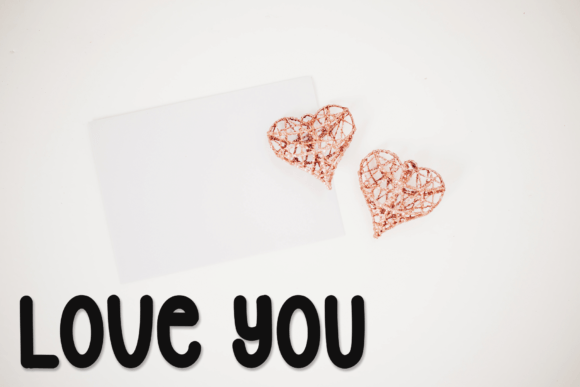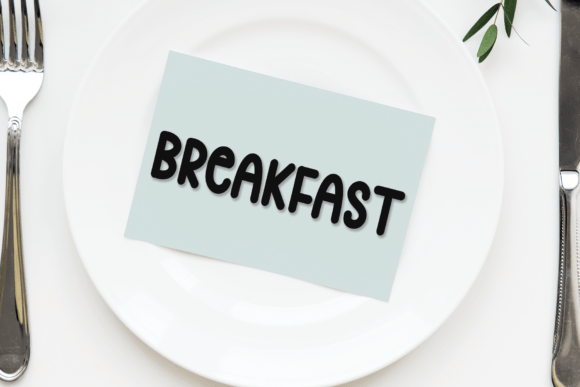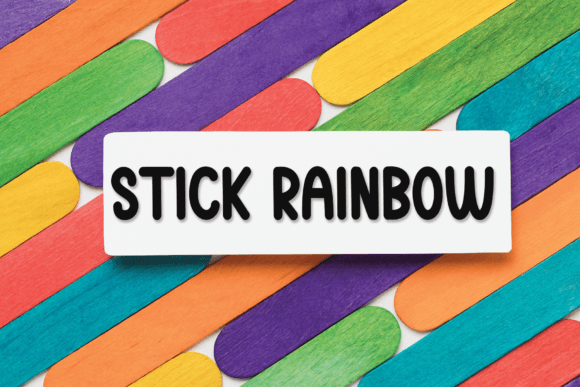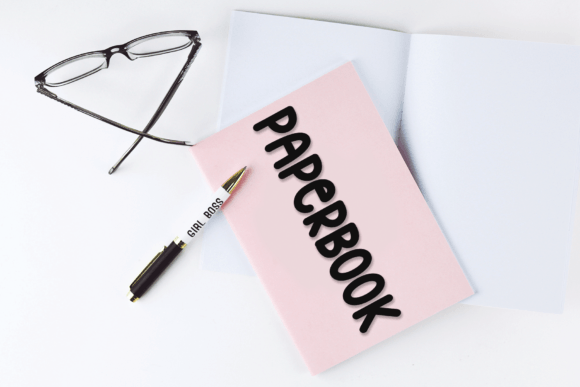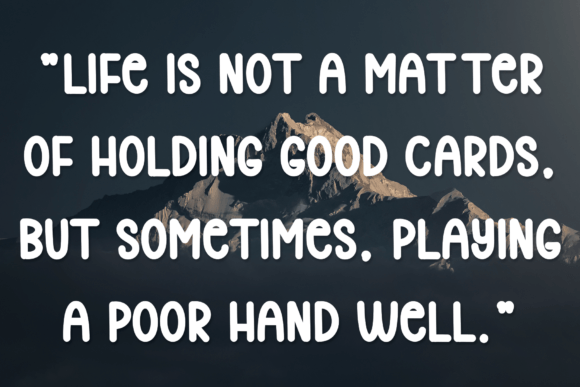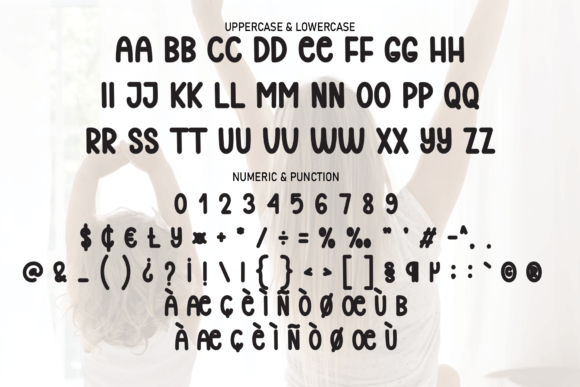
The Perfect Start: Unlocking the Power of the Beginning Font
Have you ever stared at a blank canvas, feeling like a spark of creativity is just out of reach? We’ve all been there – the blank page, the empty design space, the daunting task of bringing an idea to life. But what if we told you that the right font could be the key to unlocking that spark? Enter the Beginning Font, a bold and eye-catching typeface designed to make a statement and capture attention.
As a designer, you understand the importance of selecting the perfect font for your project. Whether it’s a wedding invitation, a social media post, or a product label, the right font can elevate your design and leave a lasting impression. That’s where the Beginning Font comes in – a versatile and modern font that’s perfect for any project that requires a bold touch.
Key Features of “Beginning Font”
- Font Family: Beginning Font is a sans-serif font family designed for modern and clean typography. It includes multiple weights and styles to cater to various design needs.
- Unique Characteristics: The font features a distinctive x-height and a wide range of character variations, making it suitable for body text, headings, and display typography.
Designer Review: Beginning Font
Overall, I have mixed feelings about the “Beginning Font”. On one hand, it has some great qualities that make it a decent choice for certain projects. ✨ Here are a few things that work well:
- The font is highly legible, making it perfect for body text and content-heavy projects.
- The font’s clean design gives it a modern and minimalist feel that works well in contemporary designs.
- The font is highly versatile and can be used in a wide range of contexts, from digital products to print materials.
However, there are some limitations that prevent me from giving it a glowing review. ⚠️ Here are a few things to consider:
- The font lacks personality and character, making it feel somewhat generic and unremarkable.
- The font’s design is not particularly original or innovative, which may make it feel less exciting than other options.
- The font’s range of weights and styles is somewhat limited, which may make it difficult to create complex typographic arrangements.
Overall, I think the “Beginning Font” is a solid, if unremarkable, choice for designers. While it has some great qualities, it also has some significant limitations that may make it less appealing than other options. Ultimately, it’s a decent choice for certain projects, but it’s not a standout font that will blow you away.
The Beginning Font is a versatile font suitable for various designs, including:
• Headlines and titles
• Body text
• Logos and branding
• Infographics and charts
For optimal results, use the Beginning Font in conjunction with a clear and concise design, and don’t be afraid to experiment with different font sizes and styles to achieve the desired effect.